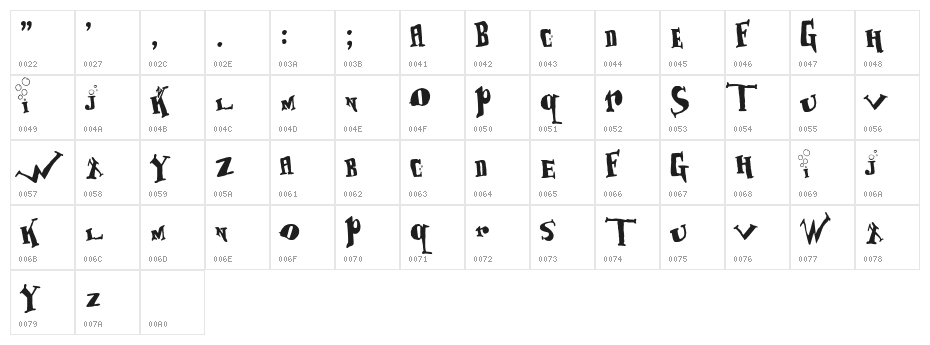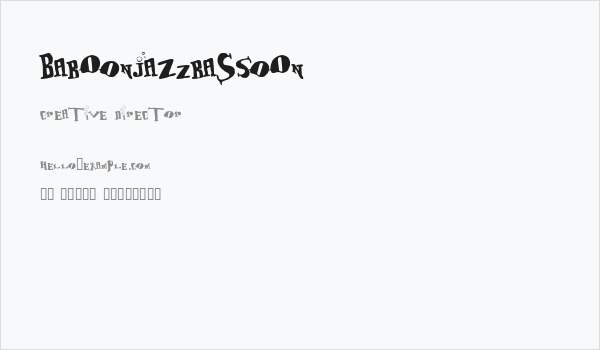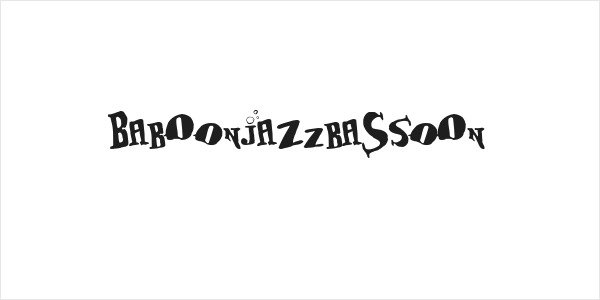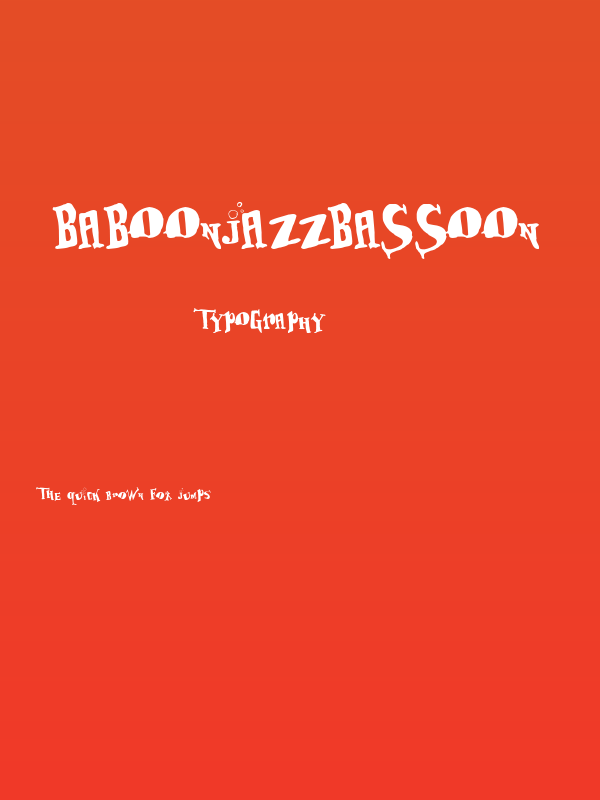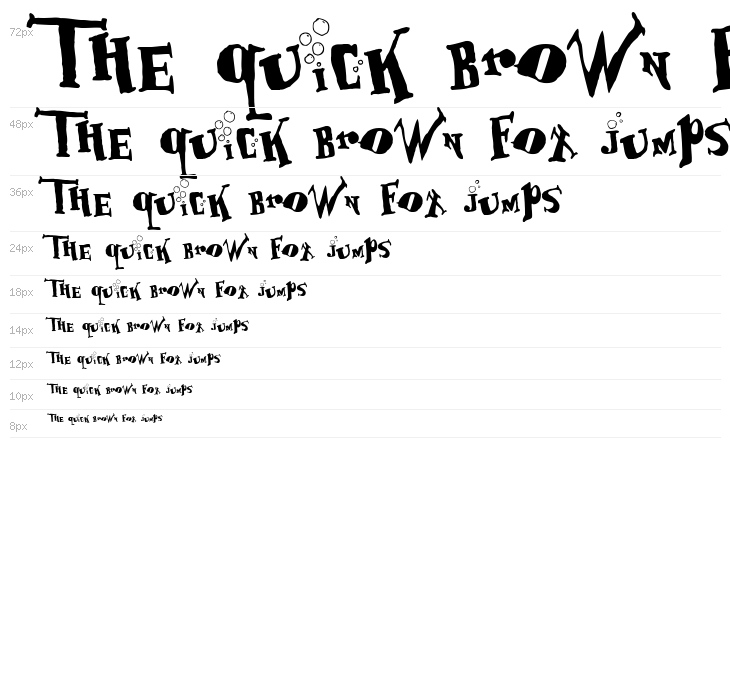
BabOonjaZzbaSsoOn Font
BabOonjaZzbaSsoOn Description
This playful and whimsical font features irregular, jagged edges and a hand-drawn appearance, reminiscent of a spooky or underwater theme. The uppercase letters are bold and uneven, with some characters incorporating playful elements like bubbles. The lowercase letters maintain the quirky style, with exaggerated curves and angles. The font includes a variety of special characters, maintaining the same playful and irregular style. Its unique and decorative nature makes it stand out, ideal for creative and themed projects.
| Proposed Projects | Ideal for Halloween-themed designs, children's book covers, party invitations, and playful branding. |